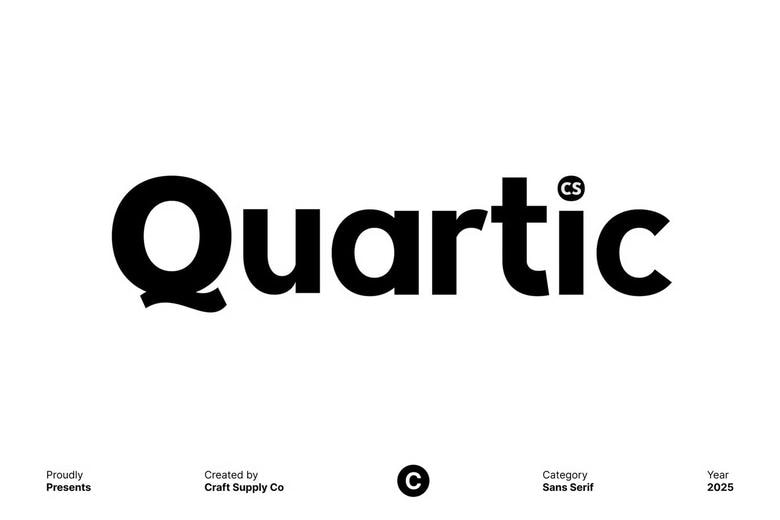
Quartic Font
Quartic Font -Bold Modern Sans Serif with Unconventional Energy Strong, Clean Shapes Built to Confident Visual Impact This one is the bold typeface which is designed to offer clarity, strength, and a modern attitude in each type. Its massive structure and clean lines are a source of confidence, and it is a perfect fit to make bold statements and striking designs.
Contemporary Edge with a Light-Heavy Hearted, Non-traditional Style This font, though based on modern principles of sans serifs, breaks loose with minuscule peculiarities, which provide it with the charisma. It is lively in proportion and surprises with unexpected details without losing its readability. This combination of rigidity and expressive style renders it applicable to a modern project, which requires a powerful yet original font.
Bold Branding, Headlines, Posters Perfectly suited to Headlines, Posters This font is so versatile, as it is highly suited to display environments where boldness matters. Its dominance renders it ideal to headlines, posters, event graphics and effective branding systems. Perfect in marketing content, social media graphics, and campaigns that have high visibility.
The font created by Typeface Made for Designers Who Dare to Stand Out is aimed at attracting creatives who want the work to be modern, self-confident, and a bit of an outlier. Its audacious sans serif design makes layouts strong and solid, and its vibrant flairs make the difference and liveliness. This font makes each message sound with power, distinctiveness and pure force.
Quartic Sans Serif Font